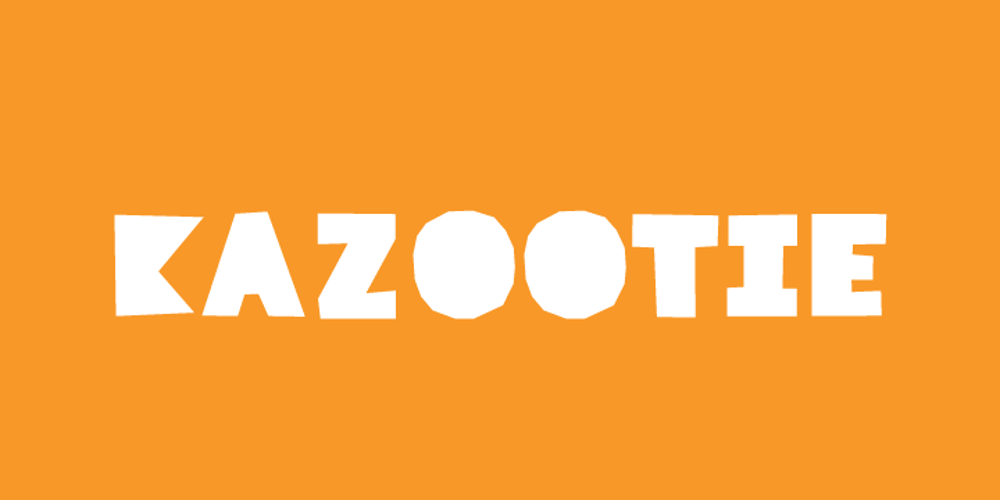
Kazootie Font Family was designed by Anne Ulku and published by Chank. Kazootie contains 1 styles and family package options. Kazootie was inspired by cut-paper shapes and named after the hand puppet character Rootie Kazootie in a 1950s children’s television show. Kazootie is a light-hearted and fun display font with a big, strong voice and crisp confident stride. Best for headlines and larger text in picture books, Kazootie is all caps, but you can type your letters in uppercase or lowercase to access two different variants of the style.